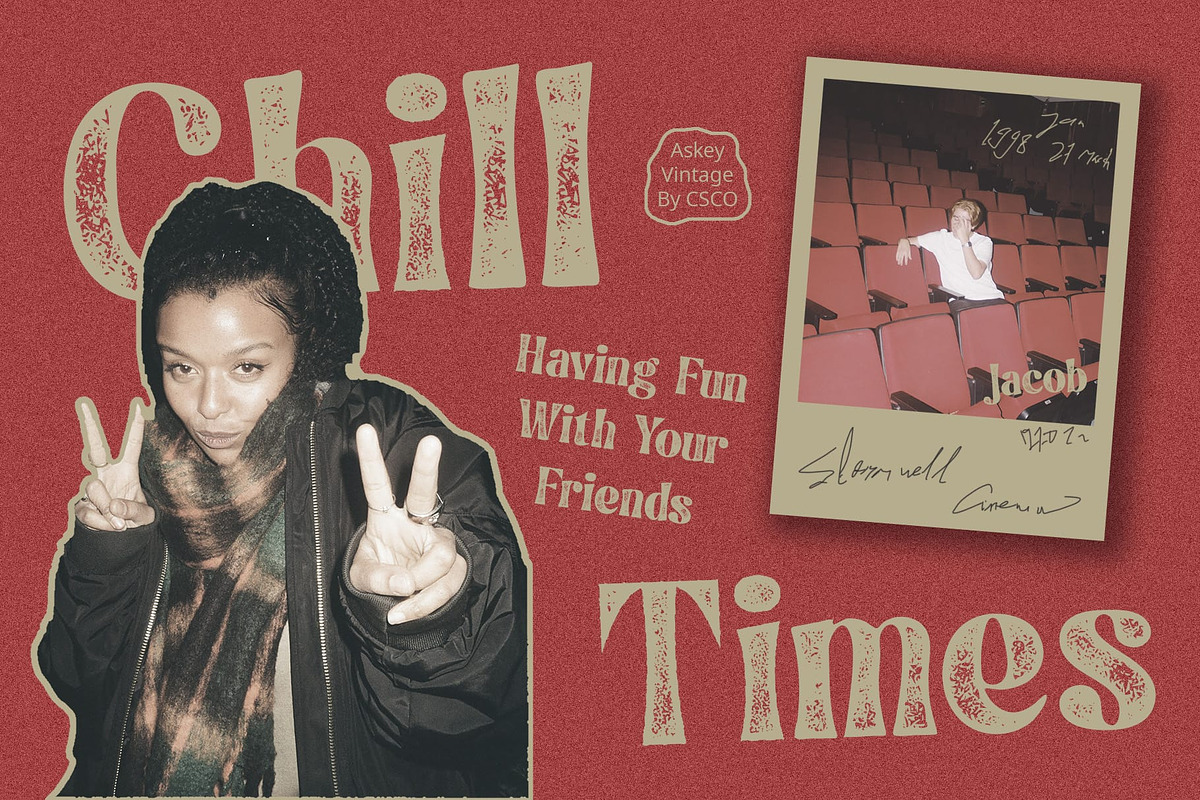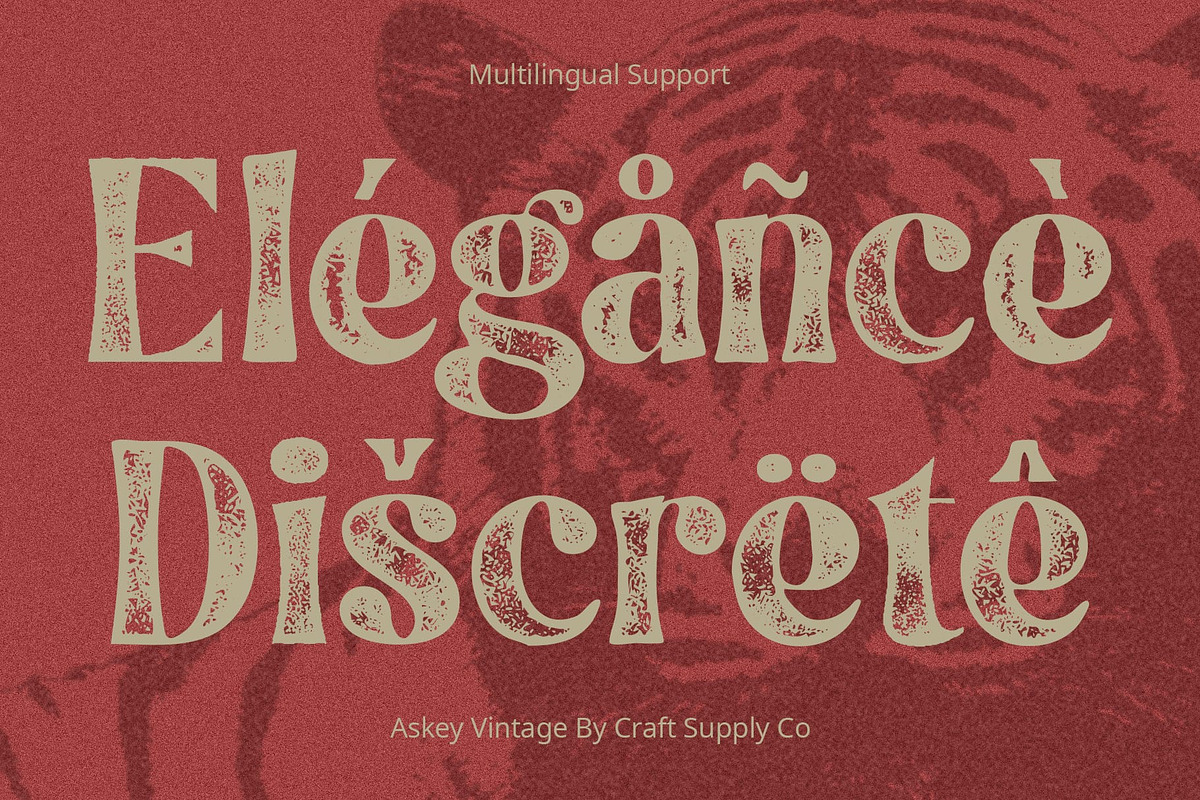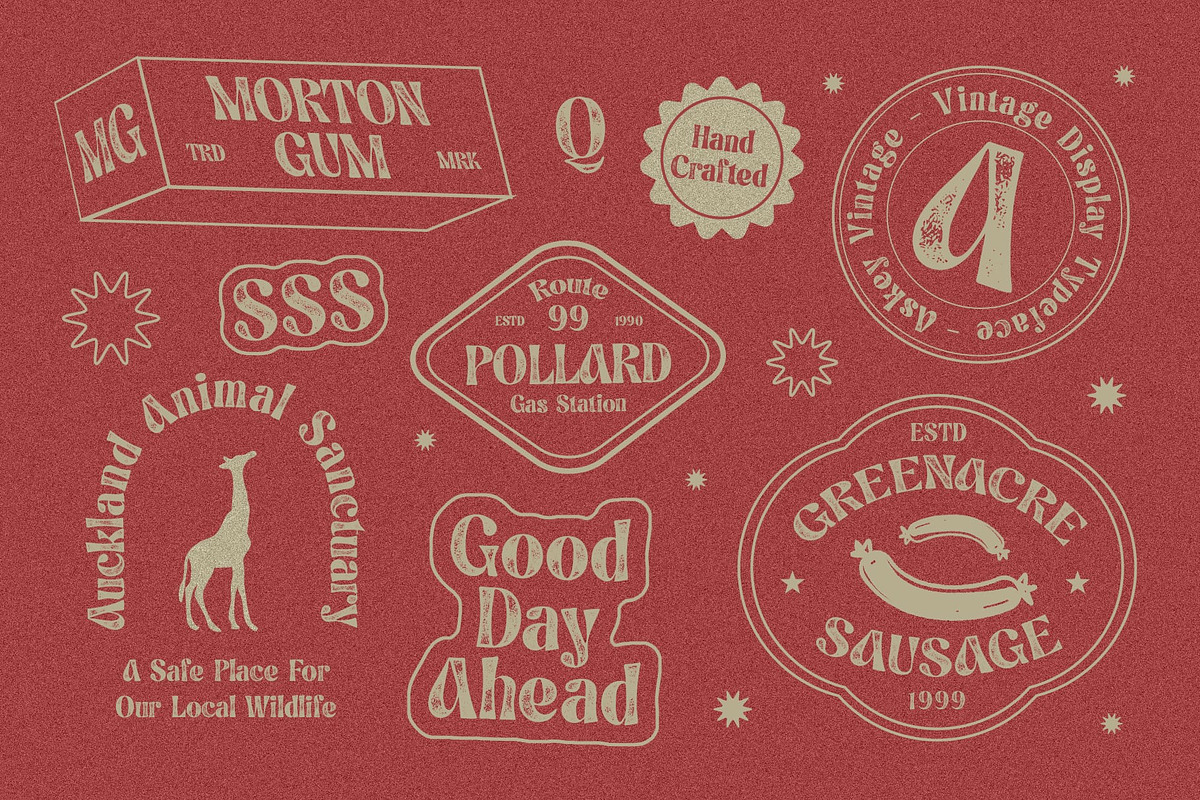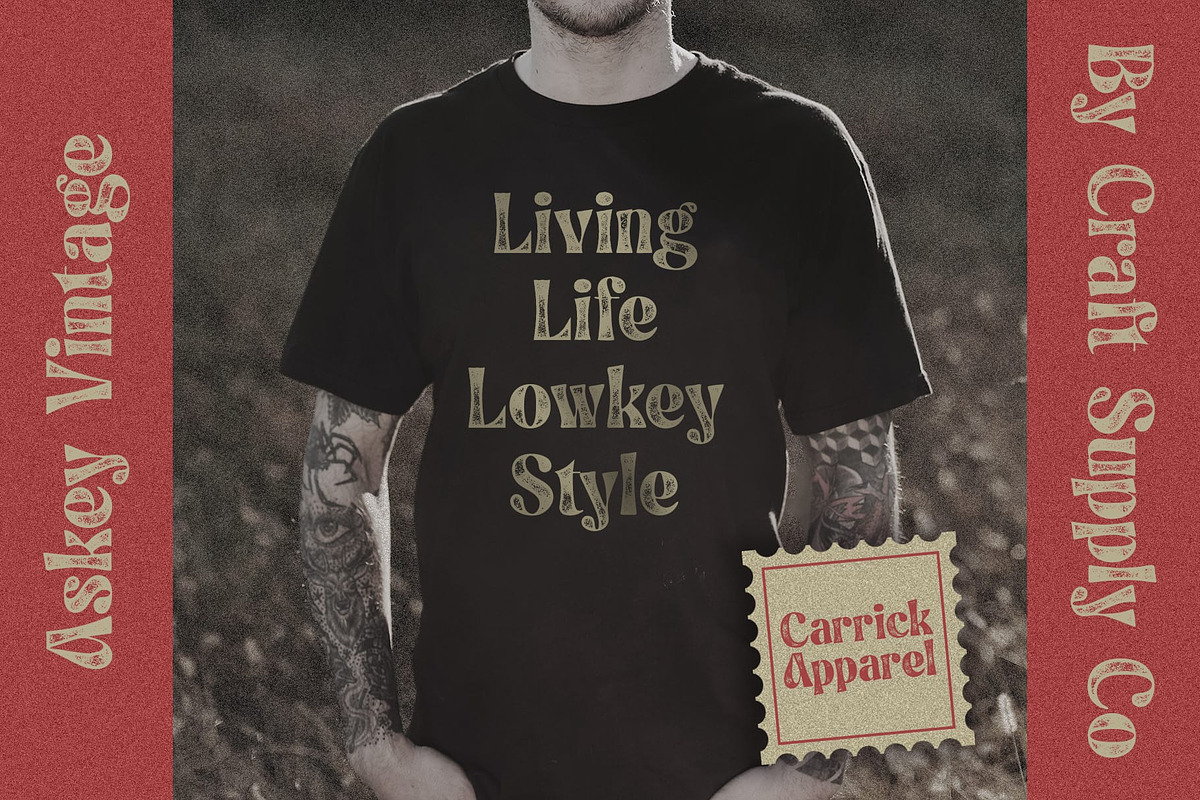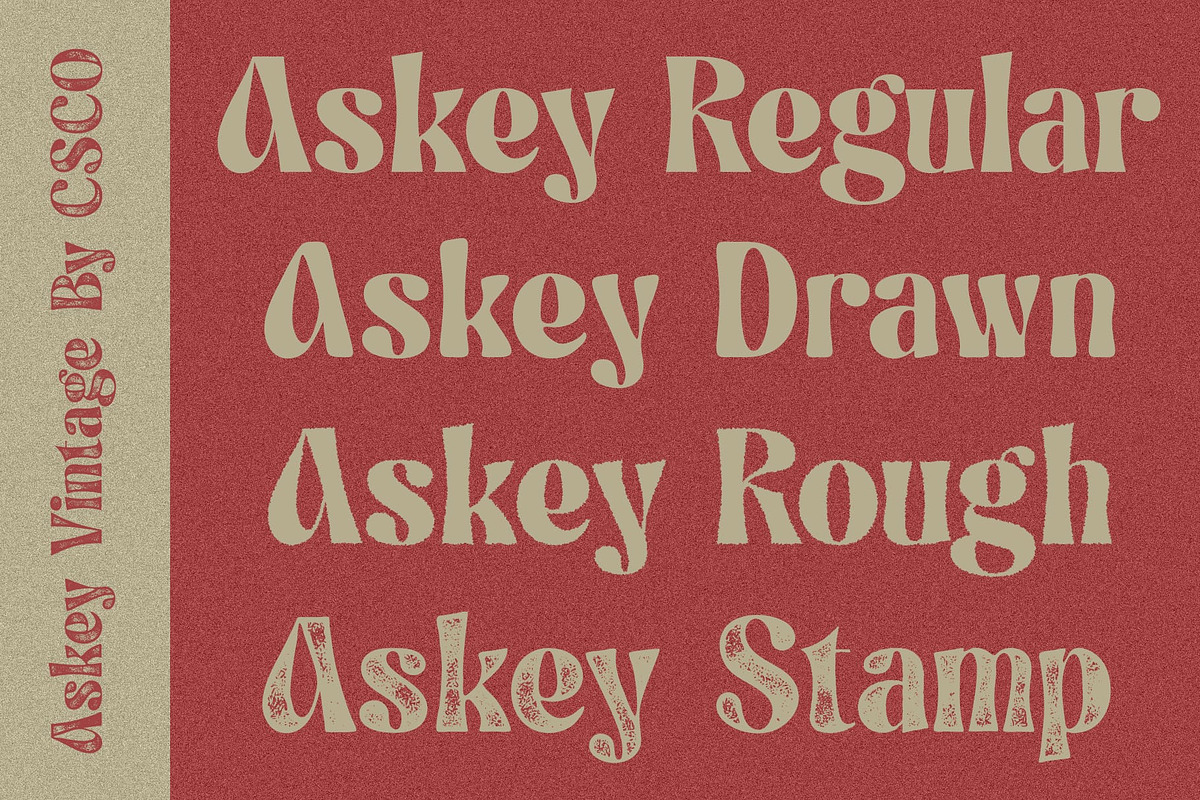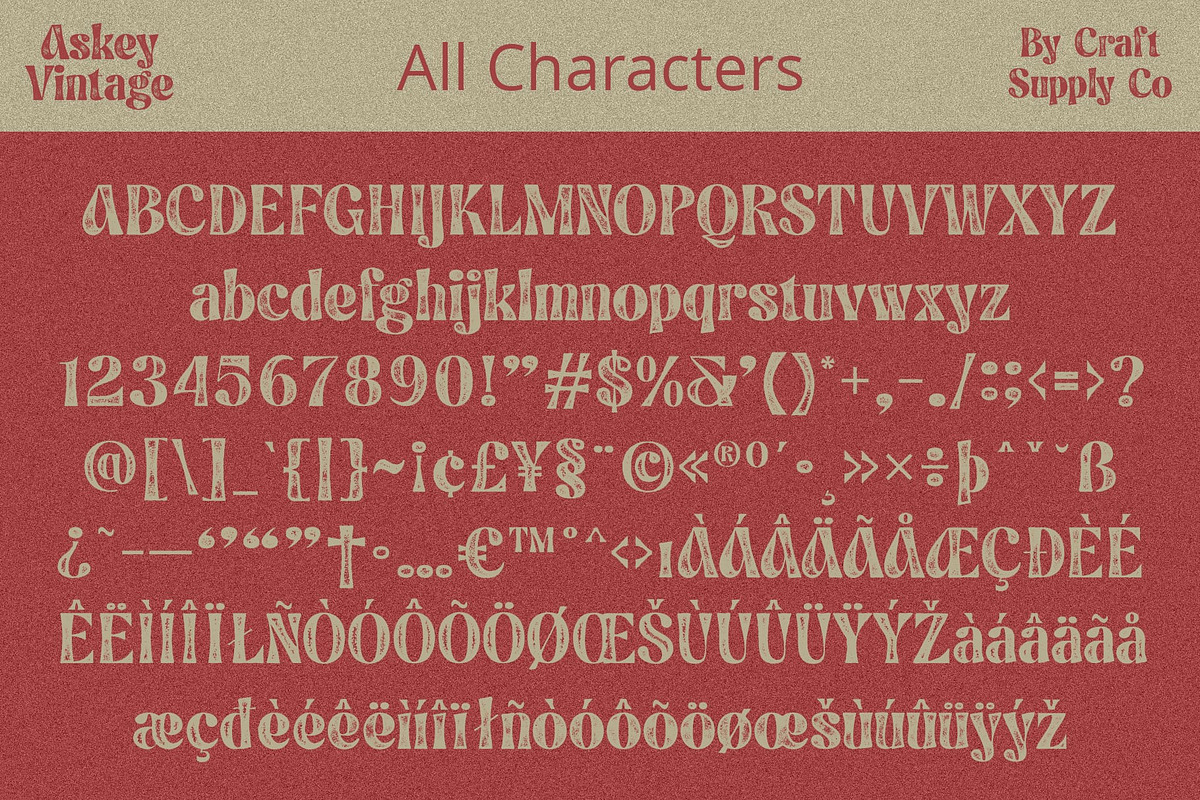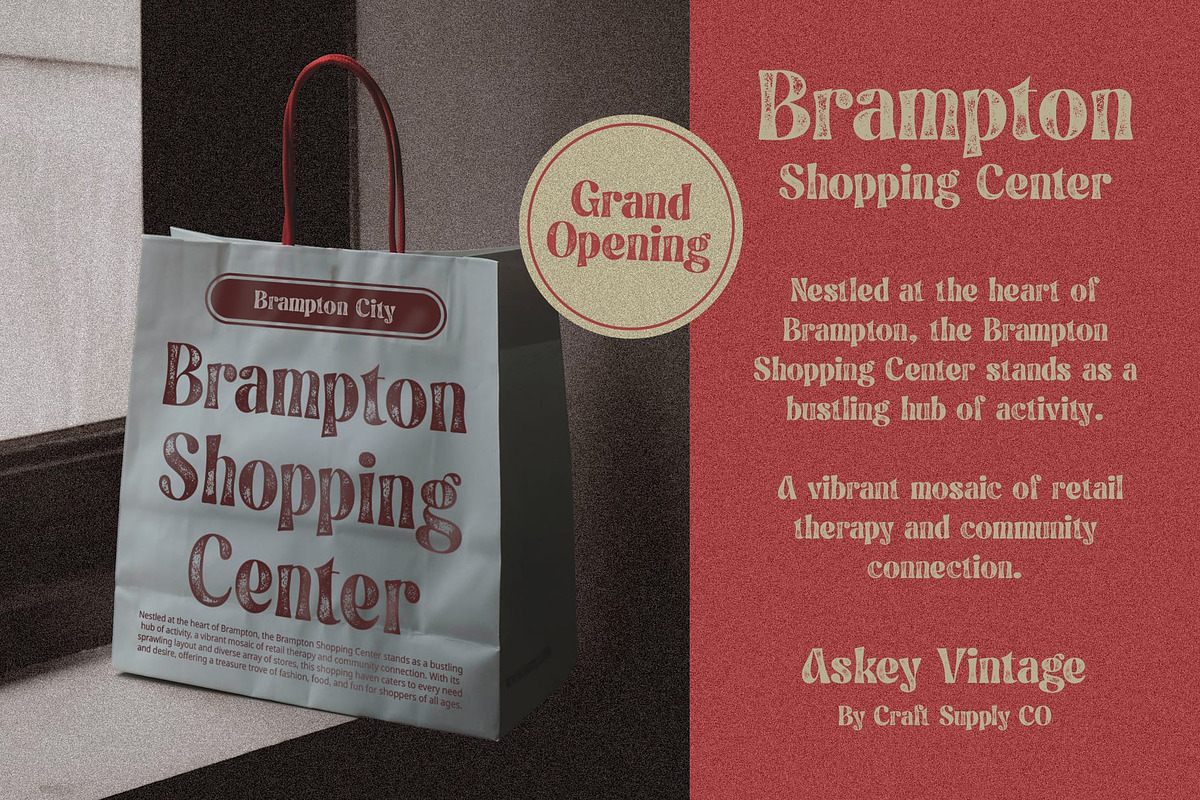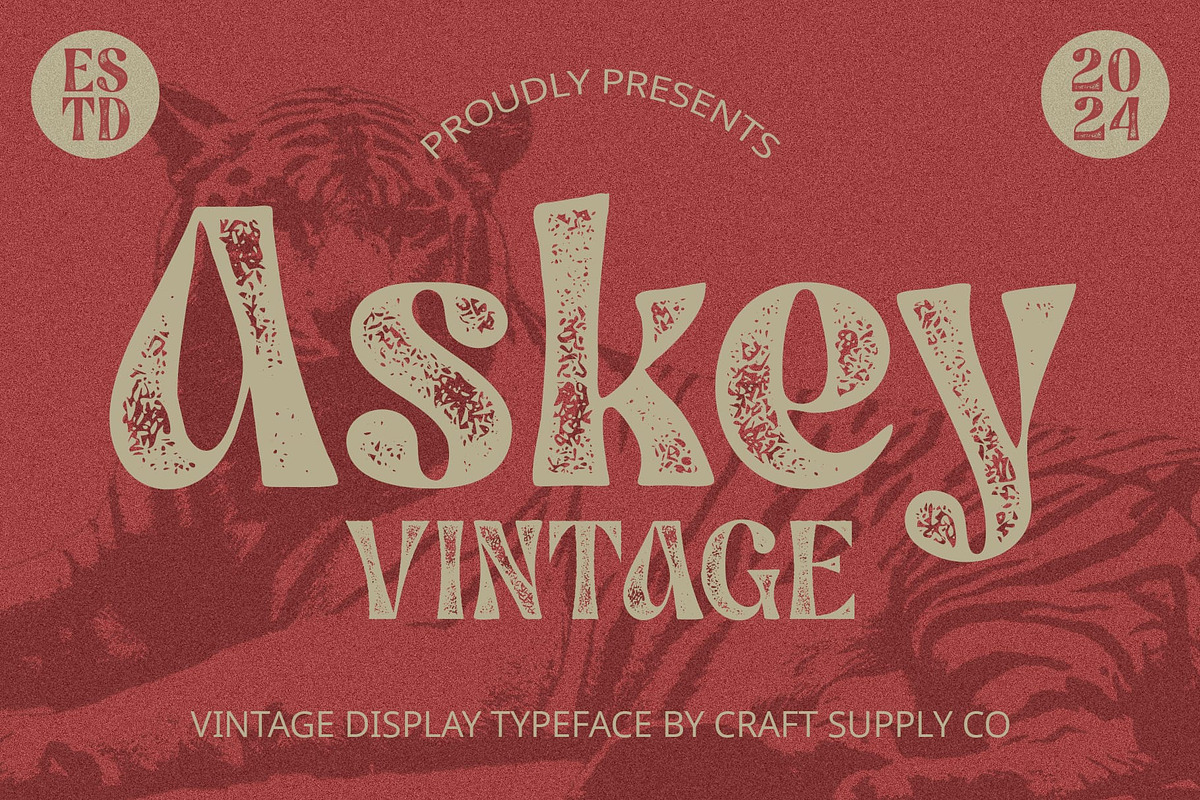
Askey Vintage
Askey Vintage: Embracing Funky Retro Vibes
A Funky Twist on Display Typography Askey Vintage presents a display font with a funky twist, featuring playful shapes and a vintage stamp rough effect that adds character to any design.
Retro Charm with Stamp Rough Effect Inspired by vintage aesthetics, This font exudes retro charm with its unique stamp rough effect. Each letter carries a nostalgic feel, reminiscent of old-school signage and posters.
Perfect for Bold Statements Tailored for making bold statements, This font stands out in various design contexts. Whether it’s for posters, album covers, or branding materials, this font adds a touch of personality and flair.
Versatile and Eye-Catching Beyond its funky appearance, This font offers versatility and eye-catching appeal. Its distinct style makes it suitable for a wide range of projects, from advertising campaigns to social media graphics.
Retro Creativity This font invites you to unleash your retro creativity with its funky shapes and vintage stamp rough effect. Perfect for making bold statements and adding personality to your designs, this font is a must-have for any designer seeking a touch of nostalgia and vibrancy.
- Askey Regular
- Askey Drawn
- Askey Rough
- Askey Stamp